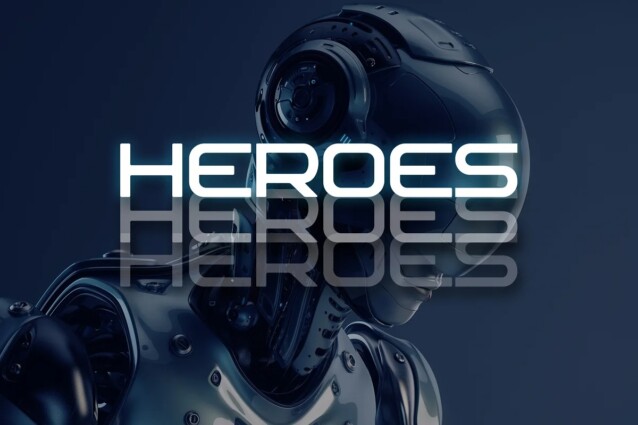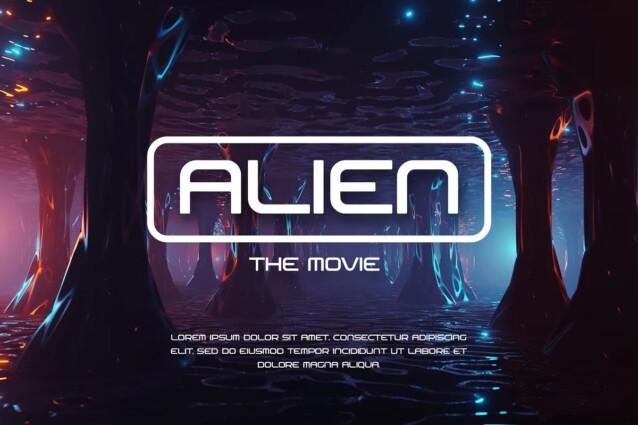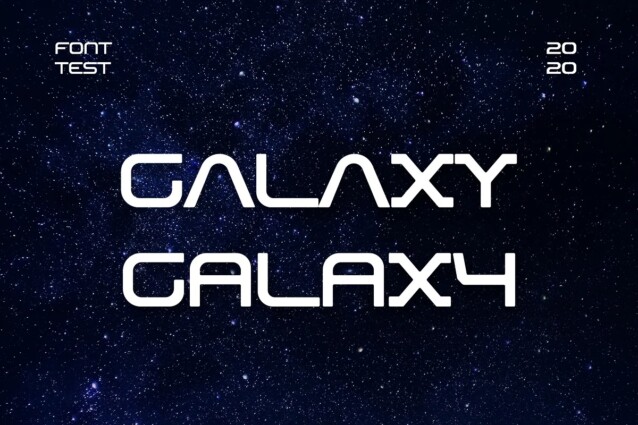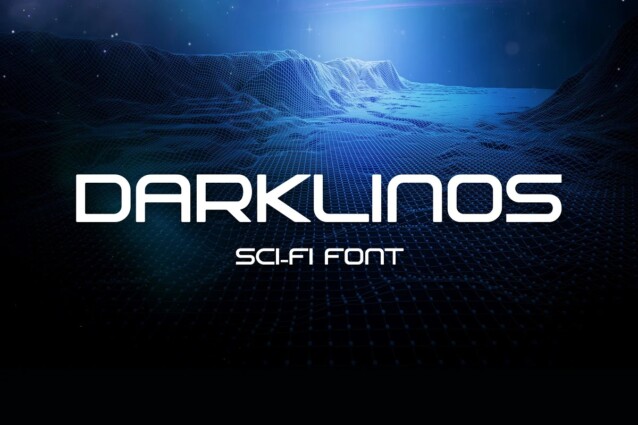
Darklinos Font
Darklinos Font is a modern and futuristic sans serif font crafted & designed by UICreative. The combination of futuristic and geometric elements renders a modern design. This font is ideally suited for a wide variety of projects, such as signature, stationery, logo, wedding, typography quotes, magazine or book covers, website headers, clothing, branding, packaging design, and more. Also, fashion-related branding or editorial design displays both masculine and feminine qualities.